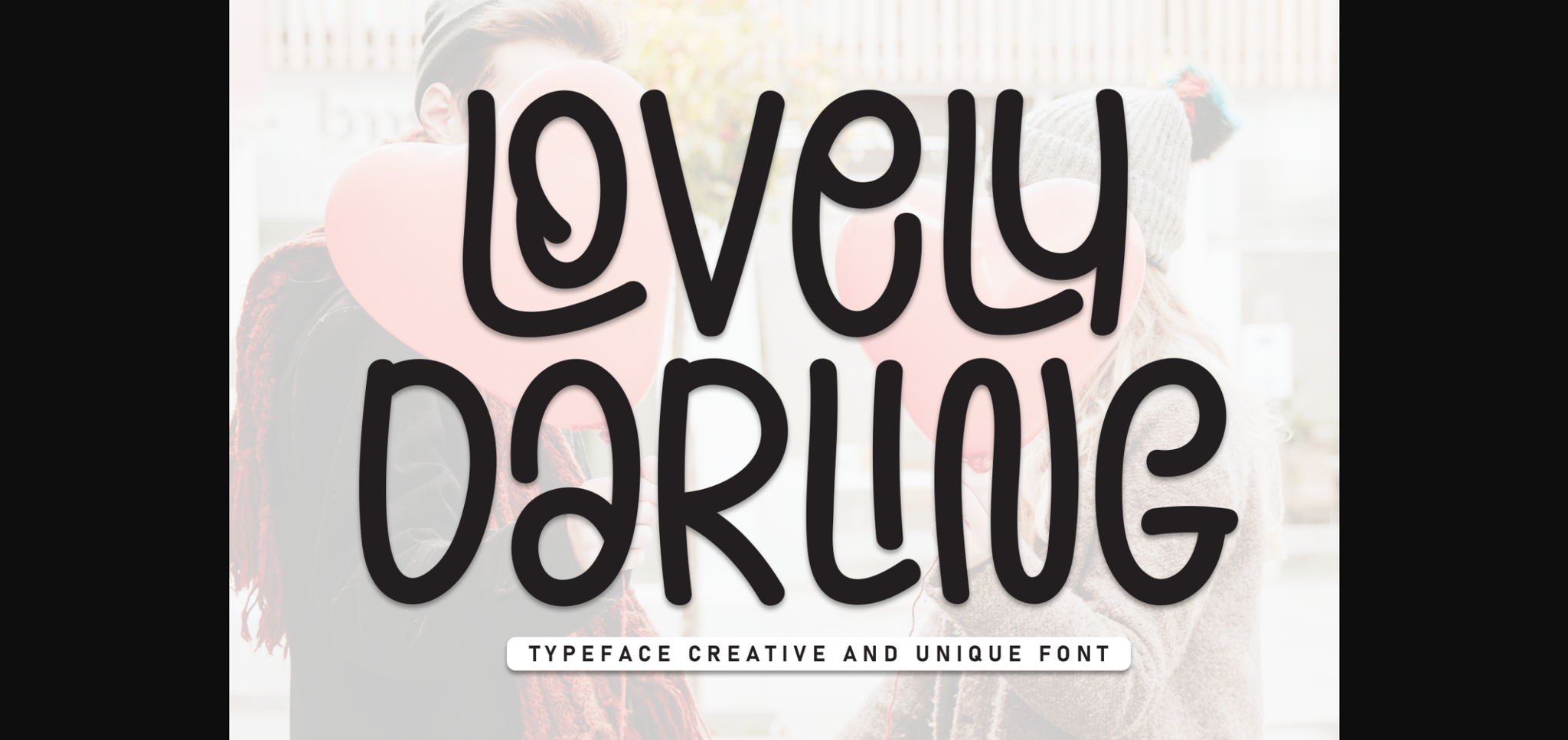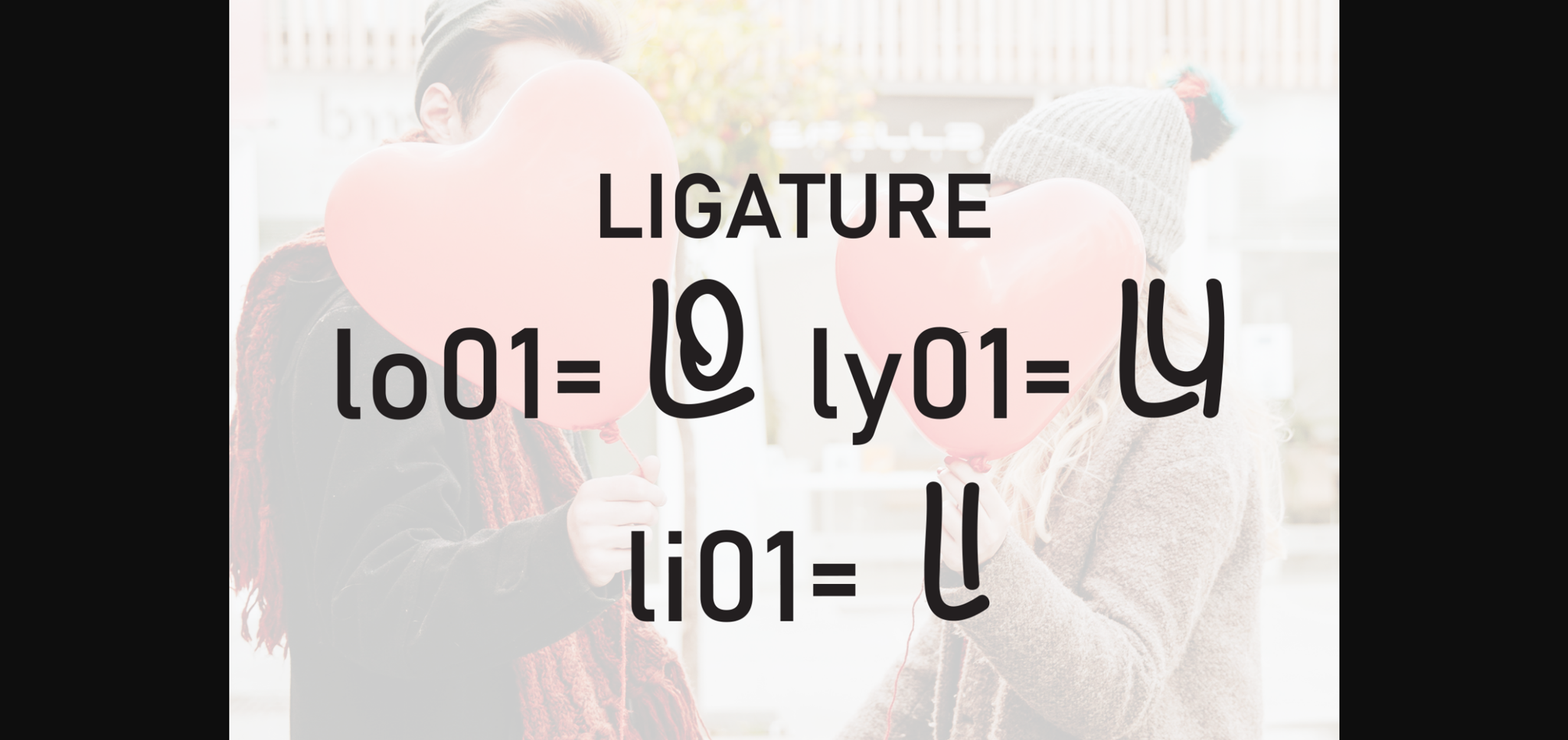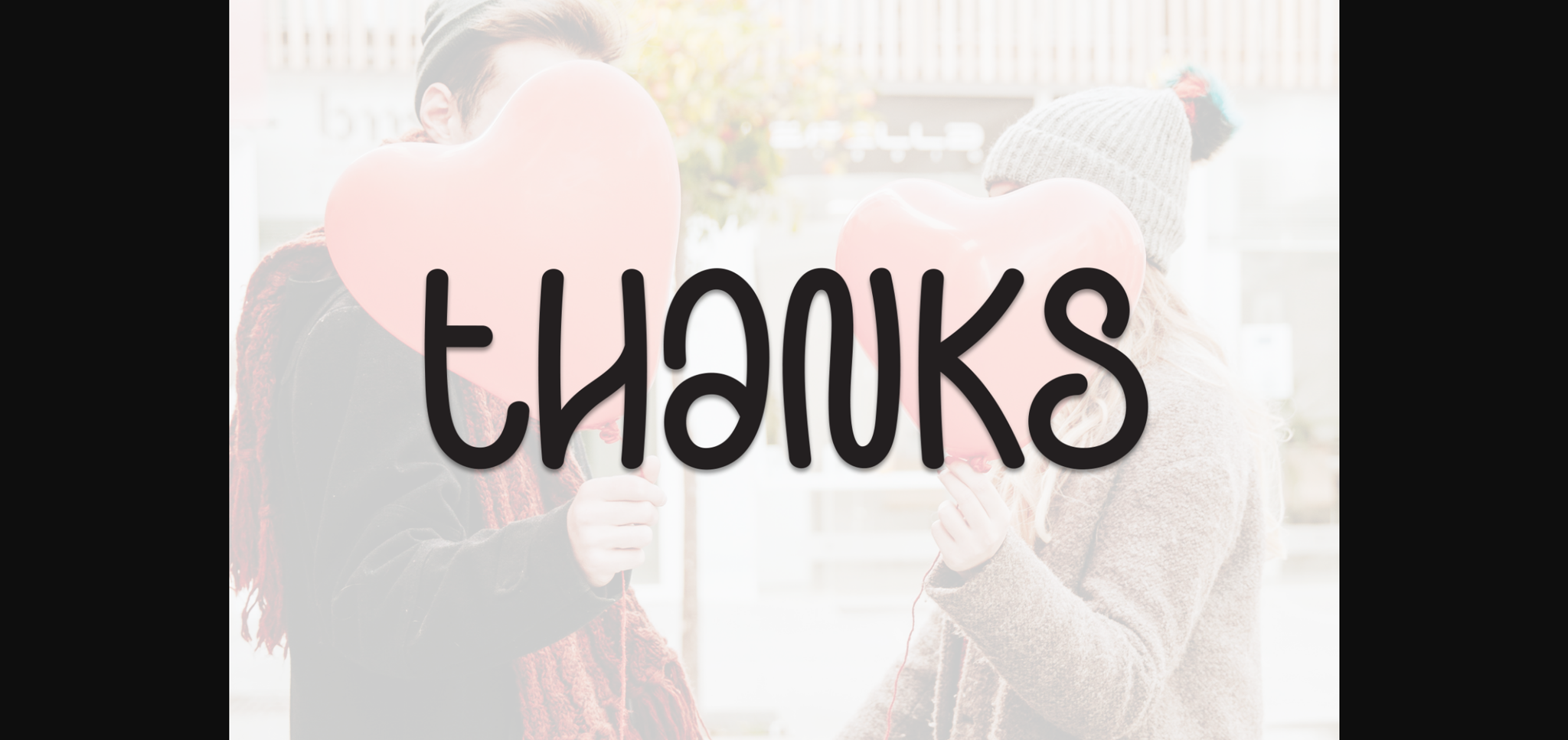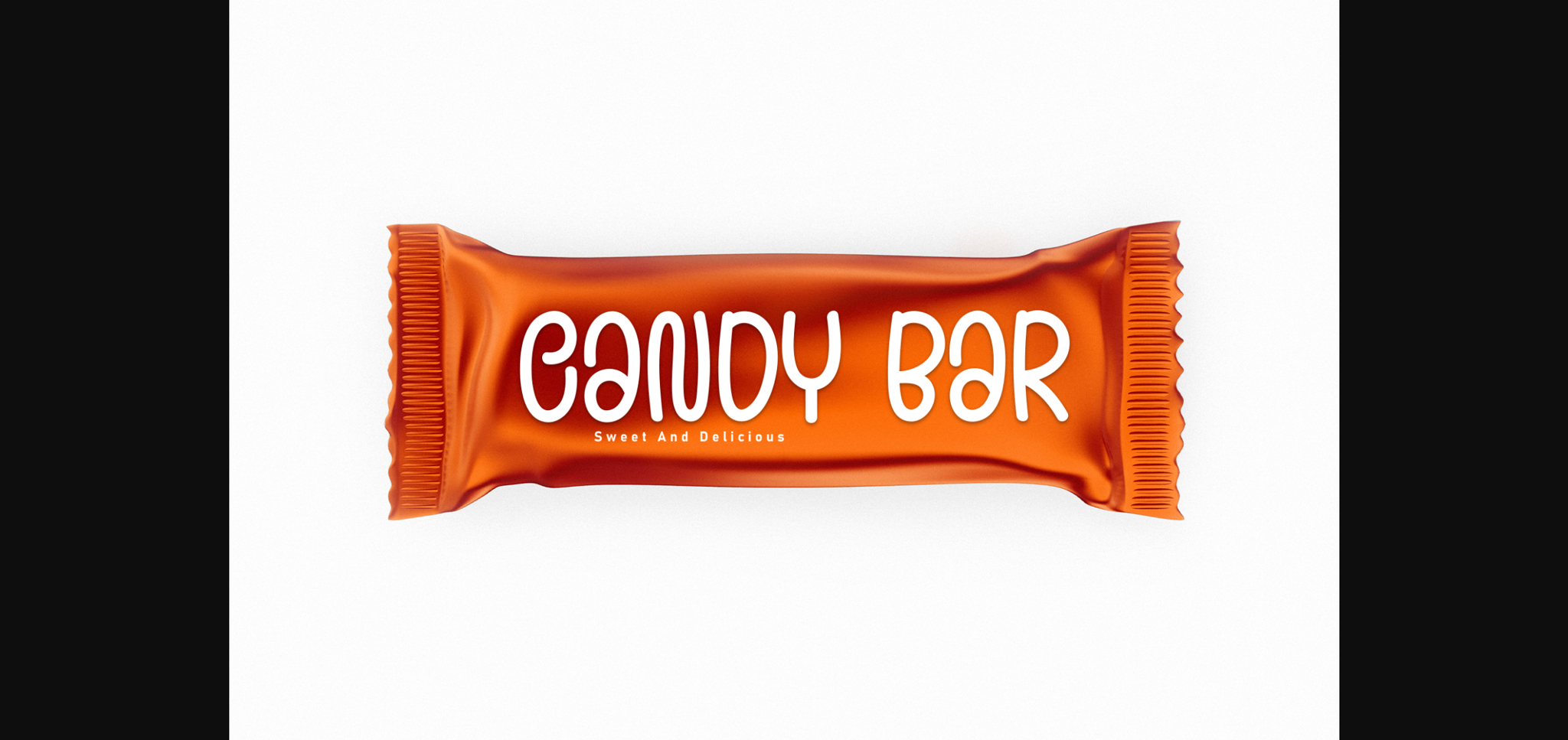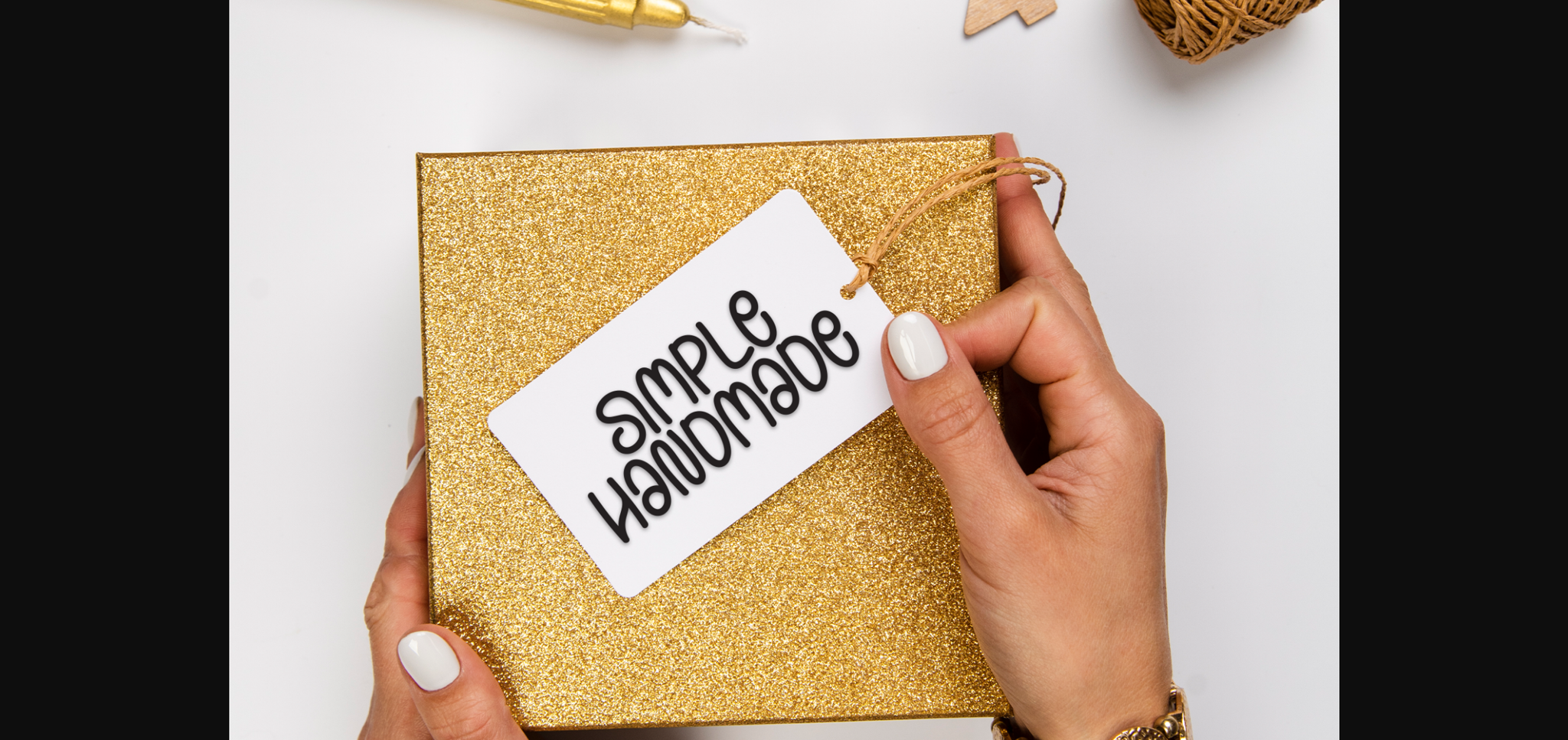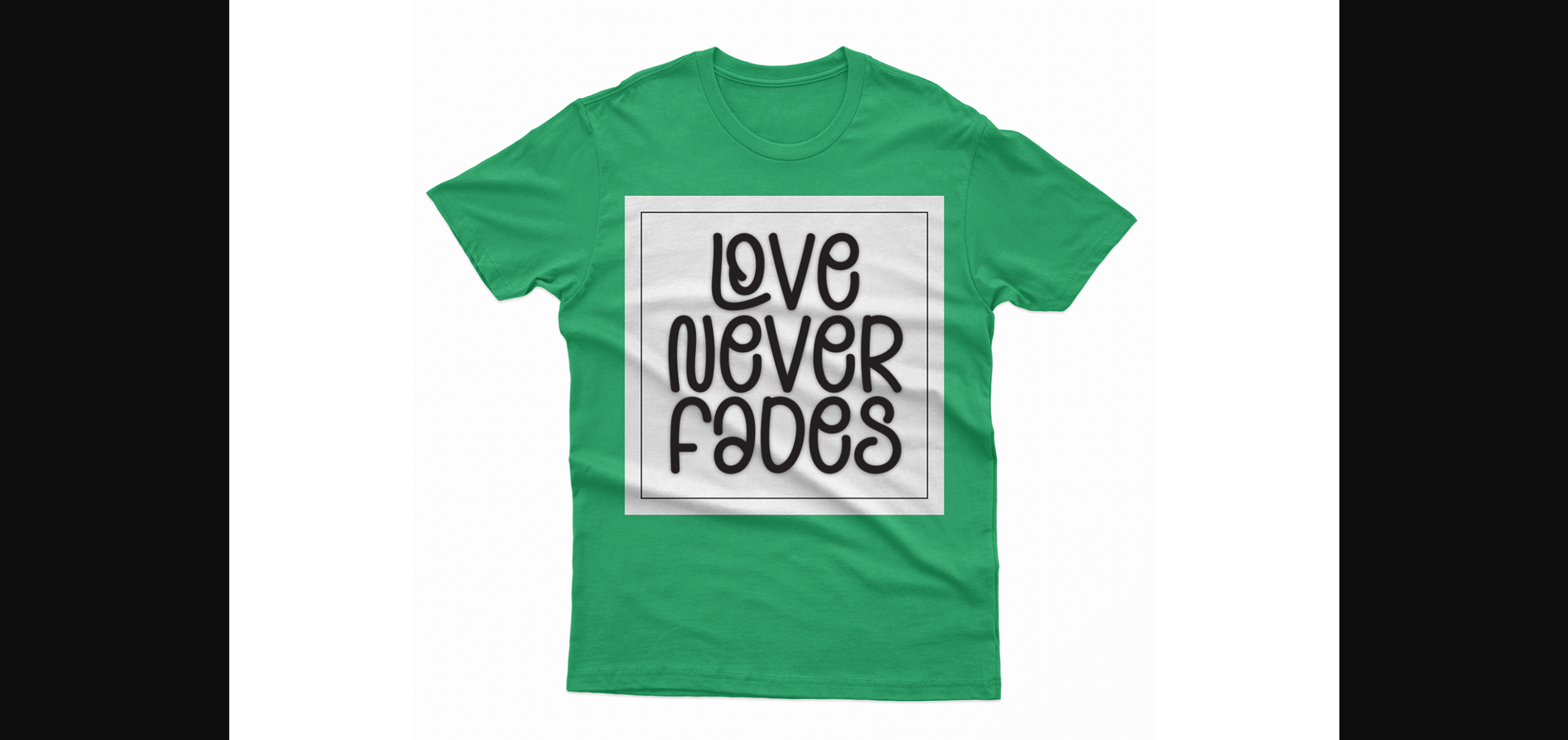
Lovely Darling Font
About Lovely Darling Font
Lovely Darling is a neat and casual sans-serif font that combines simplicity with a touch of warmth. With clean lines and balanced proportions, it exudes a friendly and approachable vibe. Perfect for various design projects, Lovely Darling brings a modern and versatile style to your typography repertoire.